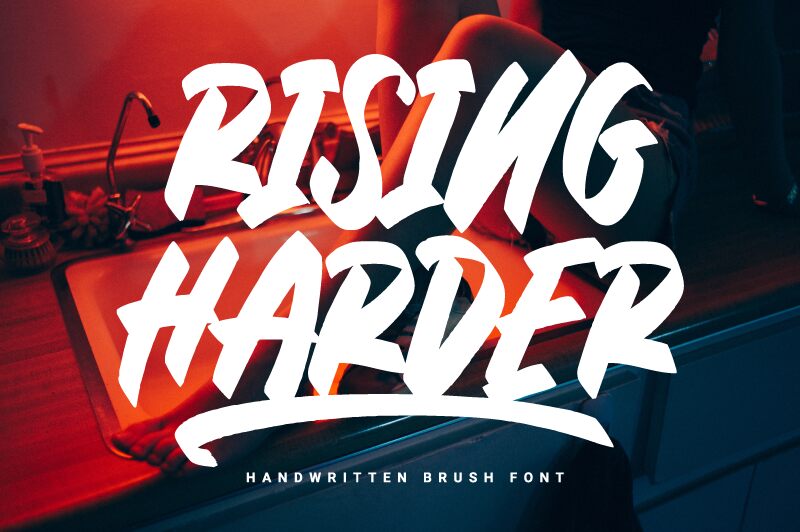
Rising Harder, a bold and condensed smooth brush font by Prioritype Co, exudes confidence and creativity. Its distinctive brush strokes add a touch of elegance to any design project.
Perfect for fashion magazines, edgy logos, or music album covers that demand attention, Rising Harder effortlessly captivates the viewer's eye. This versatile typeface lends itself to modern branding campaigns seeking a unique and sophisticated edge. With Rising Harder, your designs will rise above the competition with its boldness and refined style.
Let this font elevate your projects to new heights of visual impact and storytelling prowess.